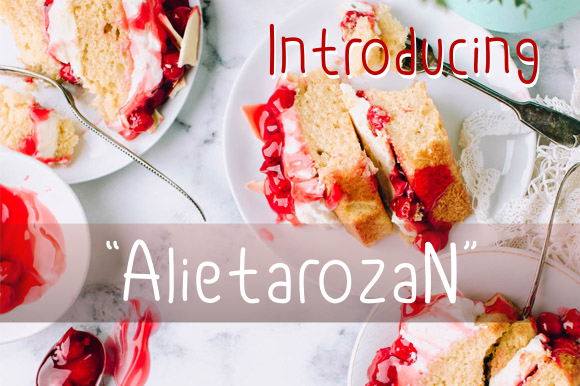
Introduction to Alietarozan Font
Do you remember that moment when you finally found the perfect font to elevate your creative project? The one that made everything fall into place and turned your ordinary design into an extraordinary eye-catcher? For many designers, this moment is what makes all the hard work worth it.
That’s exactly what Alietarozan Font offers – a simple, yet fun handwritten font with an authentic twist that will take your crafty projects to the next level. Whether you’re working on a personal or professional project, this high-quality design resource is sure to impress. With its transparent background and versatility, Alietarozan Font is the perfect addition to any design arsenal.
Key Features of Alietarozan Font
- High-quality design resource suitable for various creative projects, including graphic design and digital art.
- Alietarozan Font offers a transparent background, making it ideal for use on images with complex backgrounds.
- Alietarozan Font features a unique, elegant design that adds a touch of sophistication to any creative project.
- Perfect for use in logos, branding materials, and other design elements where a high-quality, visually appealing font is required.
Honest Review: Alietarozan Font
As a designer, I’m always on the lookout for high-quality design resources to elevate my creative projects. Recently, I had the opportunity to work with the Alietarozan Font, and I’m excited to share my honest review.
- The Alietarozan Font is incredibly versatile, suitable for a wide range of creative projects, from logos to typography-based designs.
- The font’s unique design makes it stand out from more common fonts, adding a touch of sophistication to any project.
- The transparent background option is a great feature, allowing for seamless integration with other design elements.
- The font may not be suitable for very small text sizes, as it can become difficult to read.
- The lack of bold and italic variations may limit its use in certain design situations.
Overall, I’m impressed with the Alietarozan Font. While it may have some limitations, its unique design and versatility make it a valuable addition to any designer’s toolkit. With a little creativity, it’s easy to work around its limitations, and the free download option makes it a great resource for designers on a budget.
Tips for Getting the Most Out of Alietarozan Font
To get the most out of the Alietarozan Font, use it in conjunction with other high-quality design resources. Experiment with different font sizes, colors, and arrangements to create unique and eye-catching designs. You can also use the transparent background to create complex and layered designs.
Common Use Cases for Alietarozan Font
The Alietarozan Font is ideal for various creative projects, including logos, business cards, brochures, and social media graphics. Its unique design and transparent background make it perfect for adding a professional touch to your designs. You can also use it for personal projects, such as invitations, party decorations, and photo albums.